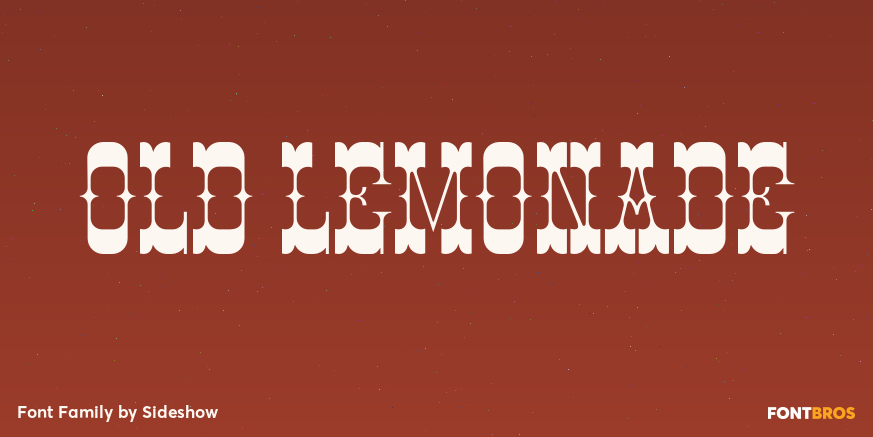
Old Lemonade
From the porch of small-town America to Farris-wheels and corn dogs at the World\’s Fair, Old Lemonade takes you back to simpler times. From posters to penny postcards, this style invites you to stroll leisurely down tree-lined streets…enjoy a trolley…